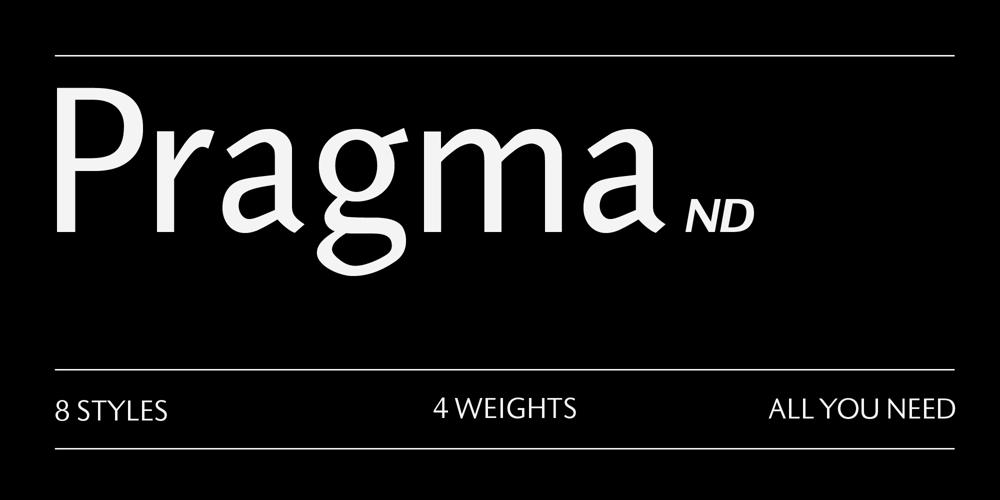
Pragma ND
Pragma ND Font Family was designed by Christopher Burke and published by Neufville Digital. Pragma ND contains 8 styles and family package options. Pragma ND is a sans serif typeface with calligraphic features. Its vital rhythm facilitates the reading of long texts. It also has an “authentic” italic imitating the movement of handwriting. Its high legibility makes it an ideal typeface for long texts in analog and digital contexts.Pragma is a Trademark of BauerTypes SL